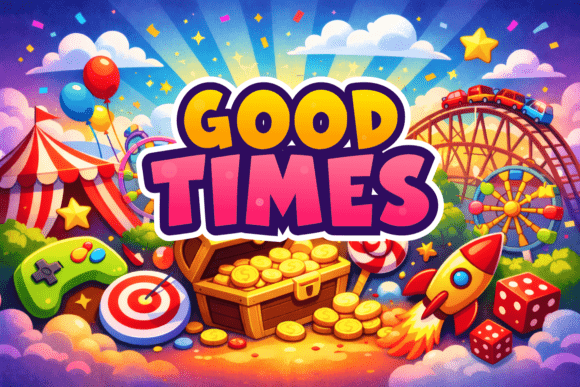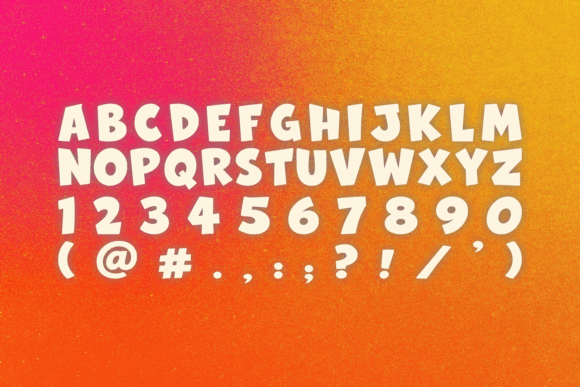
Welcome to the Whimsical World of Cartoonito Font
Have you ever been in the middle of a design project, and suddenly, you’re stuck on finding the perfect font? I recall a recent experience where I was working on a children’s book, and my client requested a font that was both playful and modern. After hours of searching, I stumbled upon the Cartoonito Font, and it instantly became the star of the show! In this article, we’ll dive into the delightful artistic fusion of Cartoonito Font, exploring its features, uses, and what makes it a fantastic addition to any creative project.
A Personal Review of Cartoonito Font
What I Love About Cartoonito Font
- ✨ Perfect blend of bold and smooth curves: Cartoonito Font strikes an excellent balance between chunky thickness and silky-smooth curves, making it a joy to use.
- ✅ Vibrant personality: This font radiates joy and cheerfulness, making it perfect for projects that require a playful touch.
- 🌈 Cuteness and friendliness in every letter: Cartoonito Font’s bubbly and rounded characteristics make it ideal for comic-style and creative endeavors.
While Cartoonito Font is an excellent choice for many projects, there are a few minor quirks to consider:
- 🤔 Limited use in formal projects: Due to its playful nature, Cartoonito Font might not be the best fit for formal or professional projects.
- ⚠️ Legibility at small sizes: When used at very small sizes, some letters might lose their clarity, so it’s essential to test the font before finalizing your design.
- Explore stylistic alternates and glyphs to add more variety to your text.
The Backstory of Cartoonito Font
Cartoonito Font was designed with the intention of creating a playful and modern typeface that would bring joy to creative projects. Inspired by the world of cartoons and comics, the designer aimed to craft a font that would be both fun and functional. With its bold and smooth curves, Cartoonito Font has become a beloved choice among designers and crafters.
Q: What type of projects is Cartoonito Font best suited for?
A: Cartoonito Font is perfect for creative projects, children’s books, educational materials, social media graphics, party invitations, and greeting cards.
Q: Is Cartoonito Font available in different weights or styles?
A: Currently, Cartoonito Font is available in a single weight, but its versatility and range of OpenType features make it suitable for various design applications.